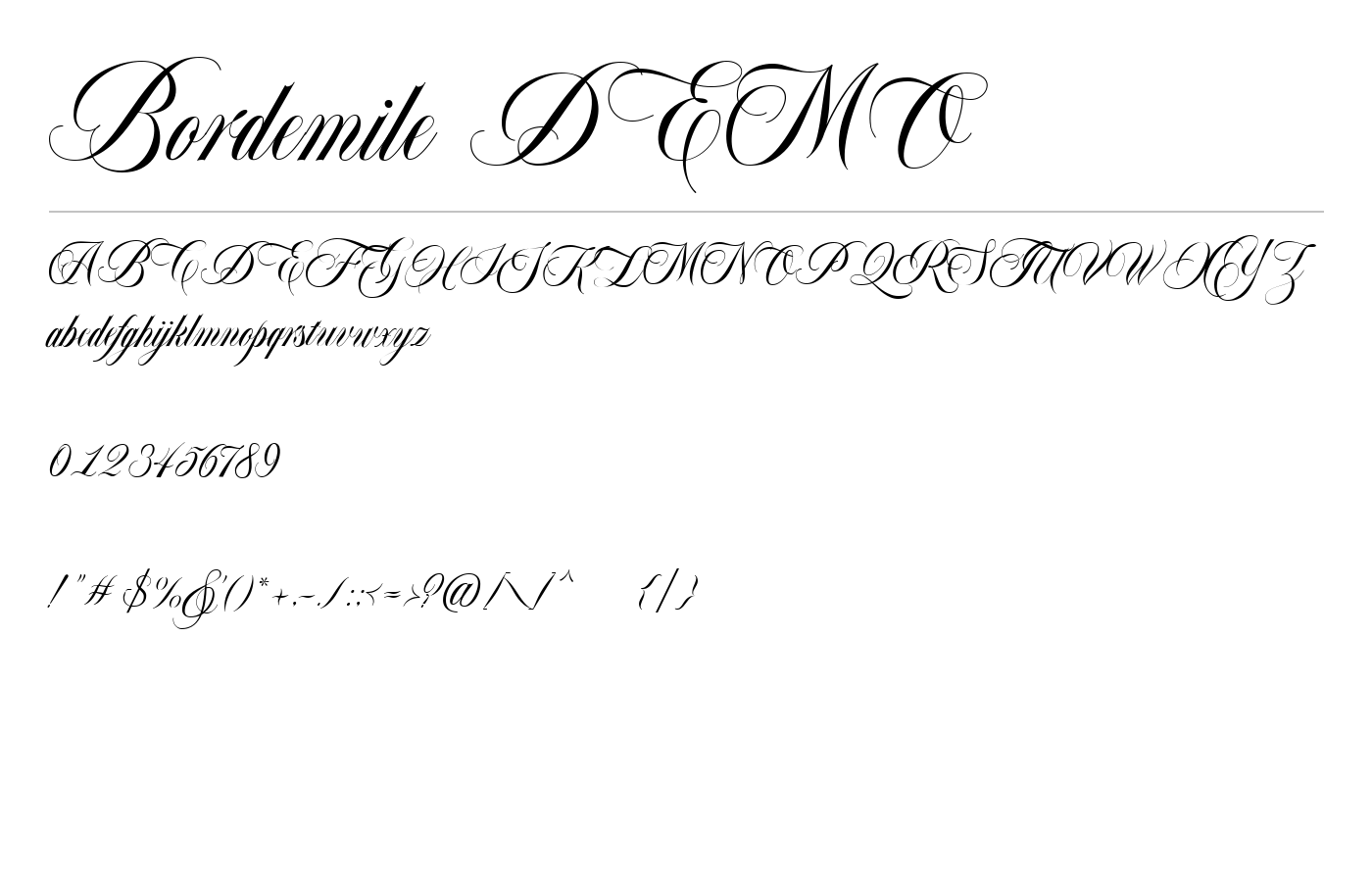
Bordemile DEMO is an elegant script font with delicate, flowing strokes and ornamental flourishes that convey a sophisticated, classical feel. Its high contrast and graceful letterforms make it perfect for luxury branding, wedding invitations, and refined editorial designs where a touch of timeless elegance is desired. This font shines in headlines and decorative uses, adding a sense of romance and artistry to any project.
Bordemile DEMO Font
About Bordemile DEMO Font